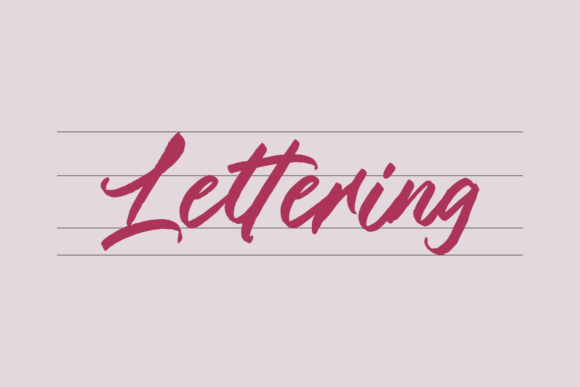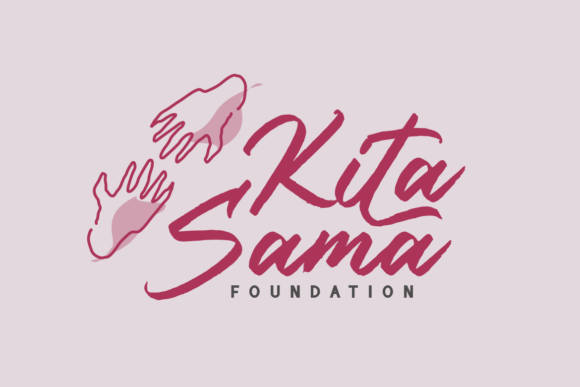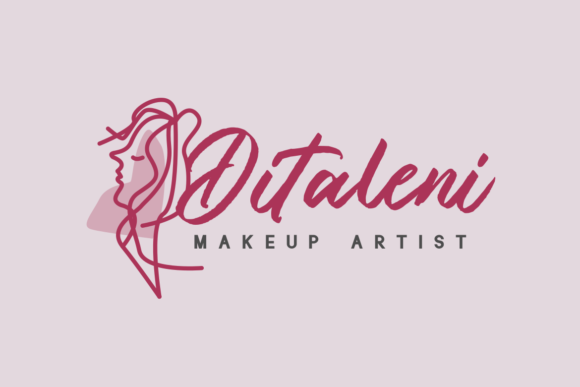
About Giselya Font
Giselya is a beautiful and brushed handwritten font.
This font is perfect to be used in your design projects, such as logos, photography, wedding invitations, advertisements.